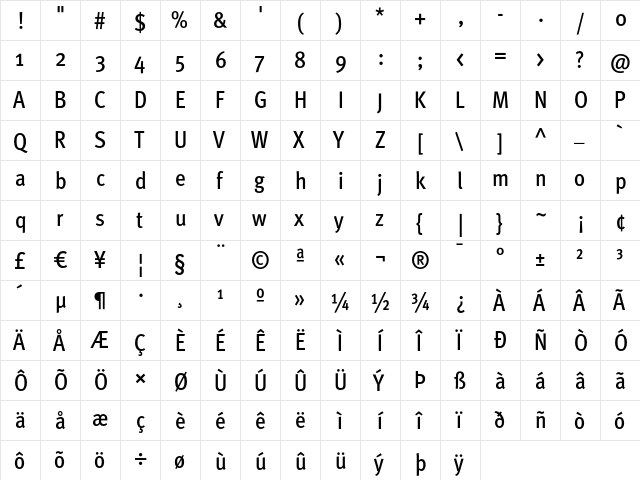
MetaCondMedium Roman Font Preview
MetaCondMedium Roman
Design Context for MetaCondMedium Typeface
MetaCondMedium offers clean, dependable letterforms without strong stylistic allegiance, making it a practical choice for designers who need flexibility. The condensed width makes it efficient for tight spaces without sacrificing legibility.